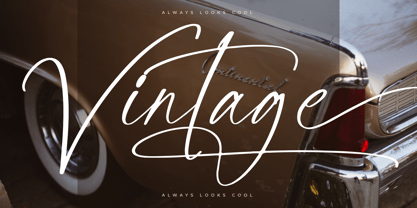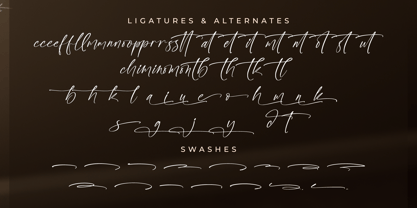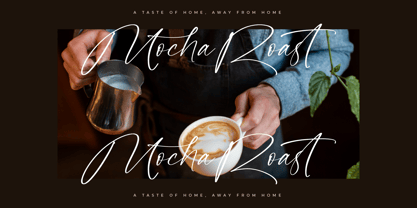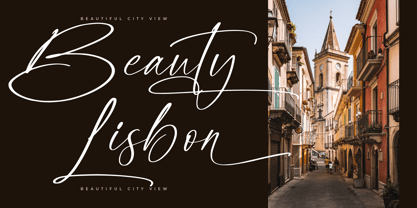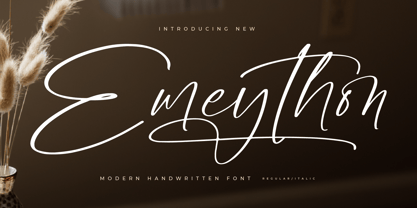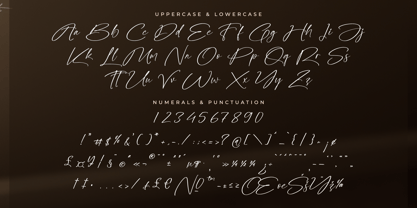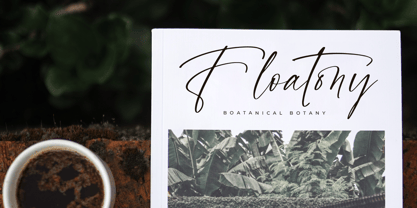
Emeython
The Emeython Font Family was designed by Heru Utama Putra and published by Letterena Studios. Emeython contains 2 styles and family package options.
Emeython is a dazzling script font exuding elegance and sophistication. Its graceful strokes and intricate details captivate the eye, making it perfect for wedding invitations, branding, and elegant designs. With its timeless appeal and delicate curves, this font adds a touch of luxury to any project.